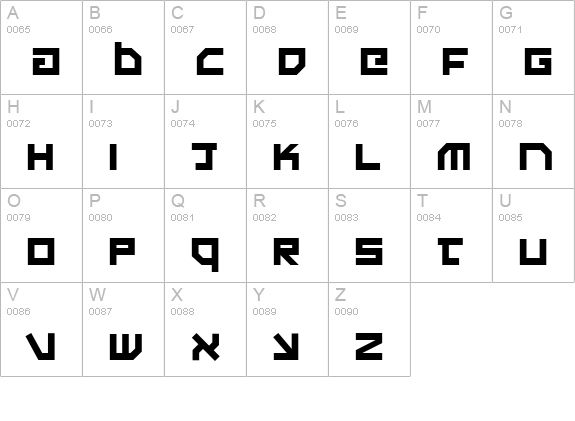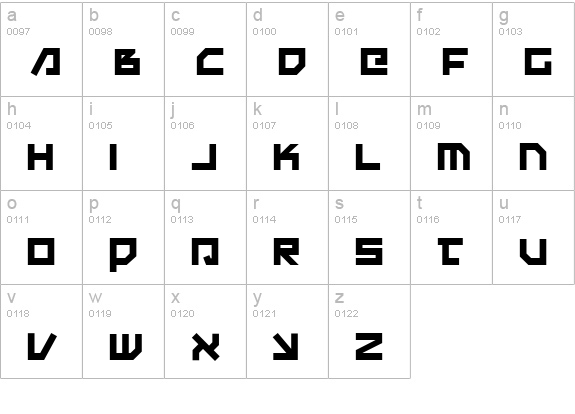
Uno Estado Font Details
Uno Estado is a modern and sleek typeface that exudes elegance and sophistication. Its clean lines and balanced proportions make it a versatile choice for a wide range of design projects. Whether you're creating a striking logo, designing a sleek website, or crafting eye-catching marketing materials, Uno Estado is sure to make a bold statement. What's even better is that Uno Estado is available for free download at FontsMarket.com. This means that you can elevate your designs without breaking the bank. Don't miss out on the opportunity to add this stunning font to your typography collection today.